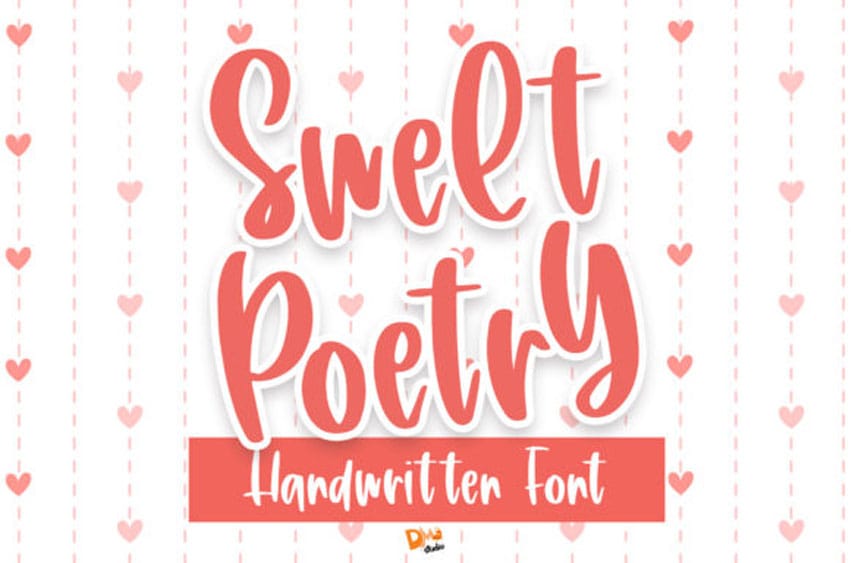
Sweet Poetry Font is a neat, friendly and casual looking handwritten font.
No matter the topic, this font will be an incredible asset to your fonts’ library, as it has the potential to elevate any creation.